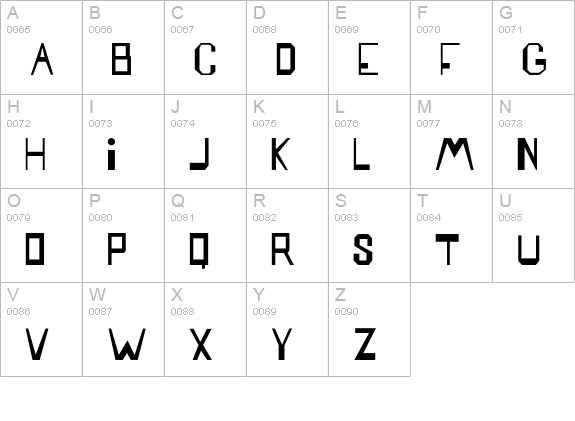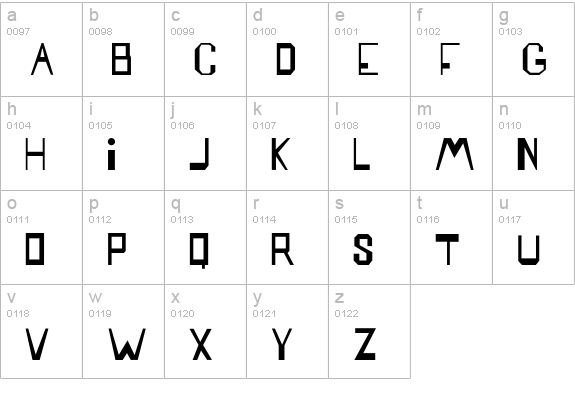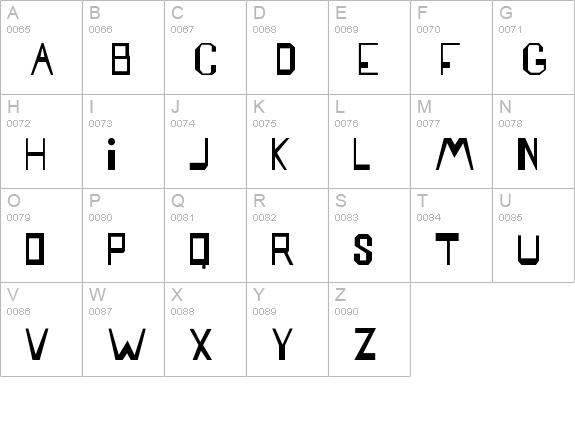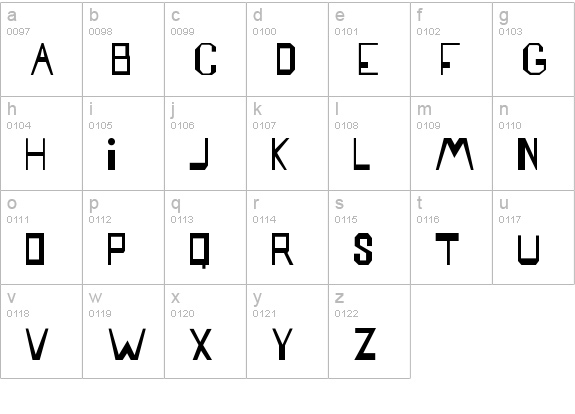
Mattress Font Details
Introducing the exquisite and versatile Mattress font - a modern and stylish typeface that brings a touch of elegance to any design project. This font features sleek lines and a clean aesthetic, making it perfect for a wide range of applications, from branding to editorial design. What sets Mattress font apart is its unique combination of sophistication and simplicity, making it suitable for both professional and creative projects. Whether you're designing a magazine layout, a logo, or a website, this font is sure to make your text stand out. The best part? Mattress font is available for free download at FontsMarket.com, allowing you to easily access this beautiful typeface for all your design needs. Don't miss out on the opportunity to elevate your projects with the stunning Mattress font today!